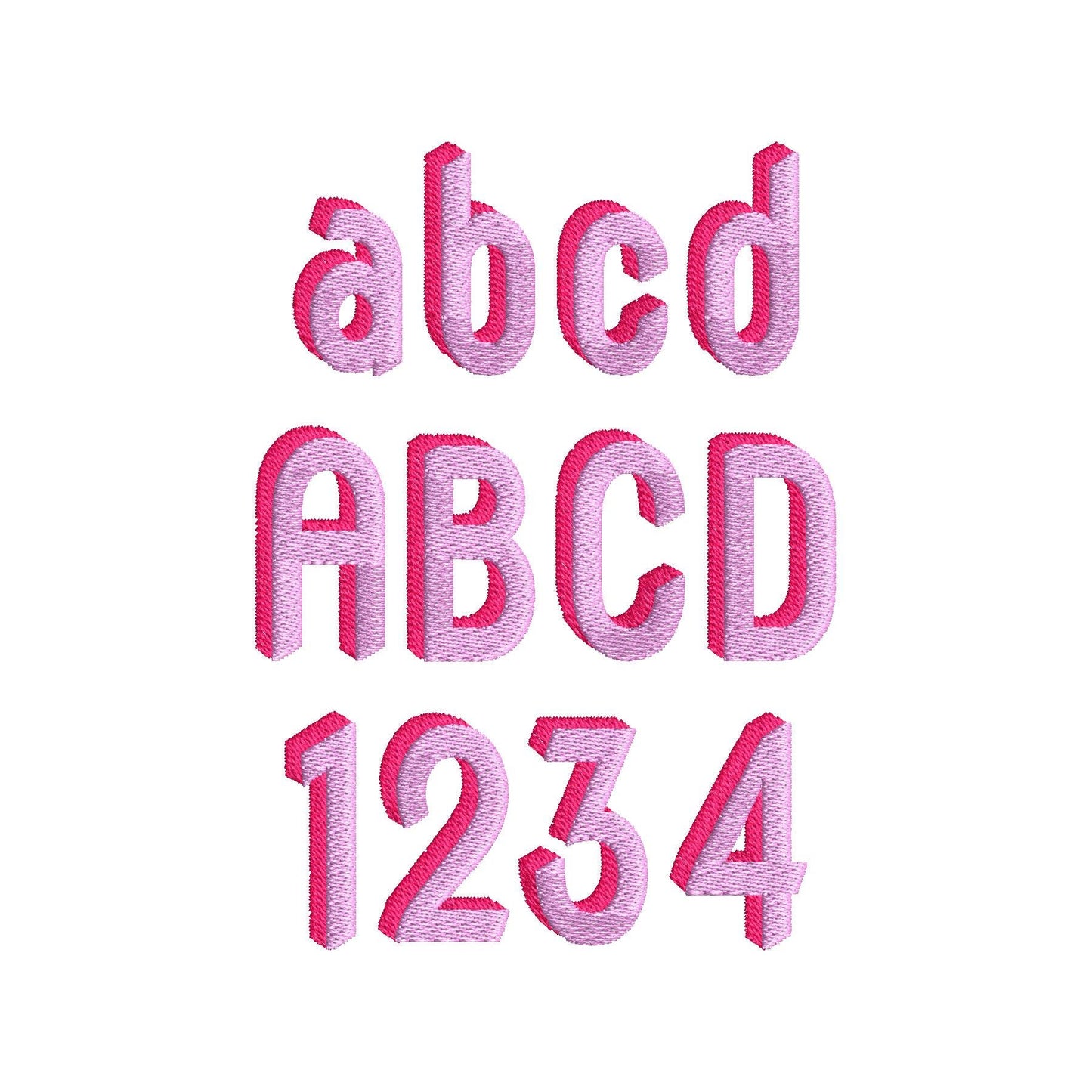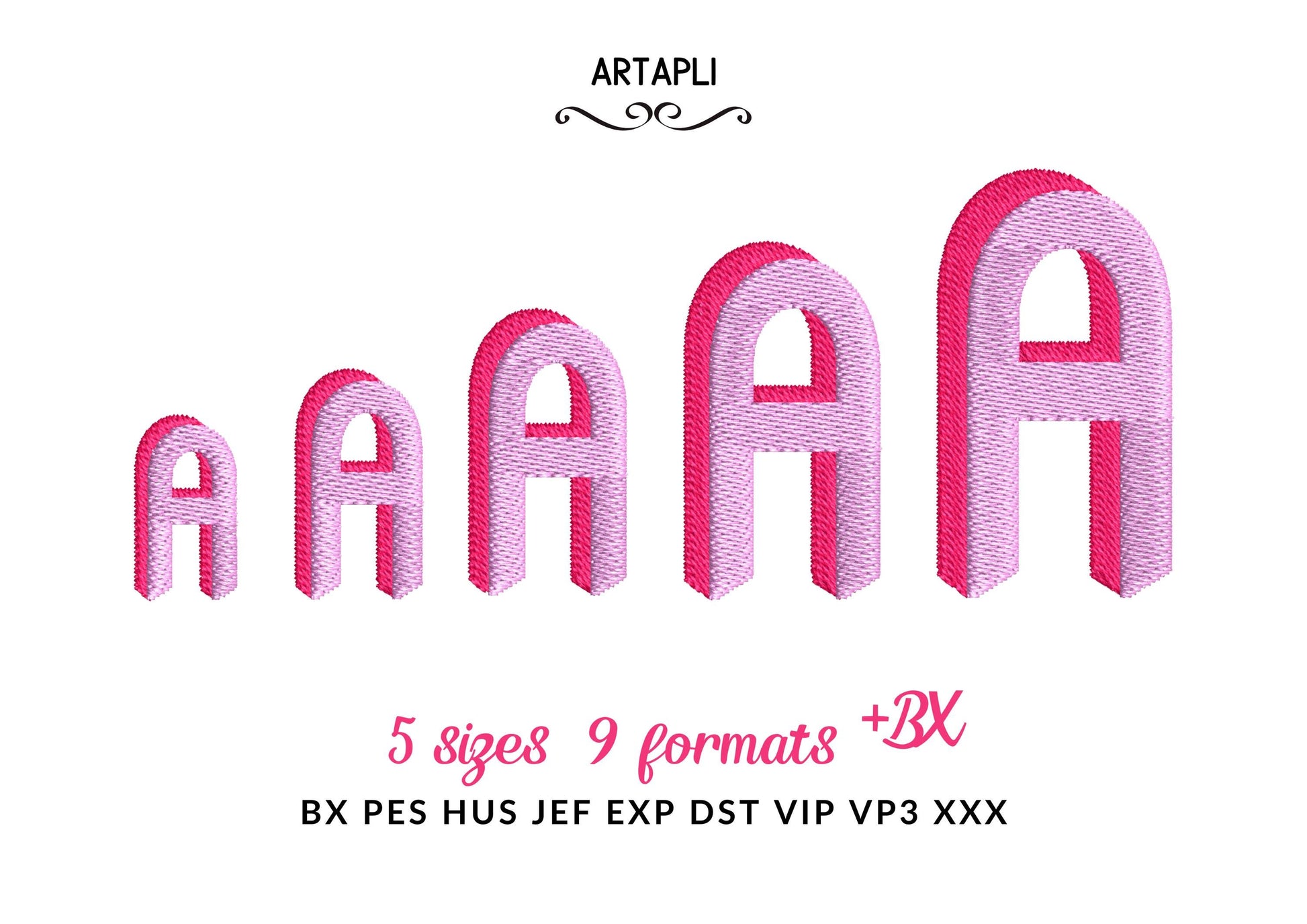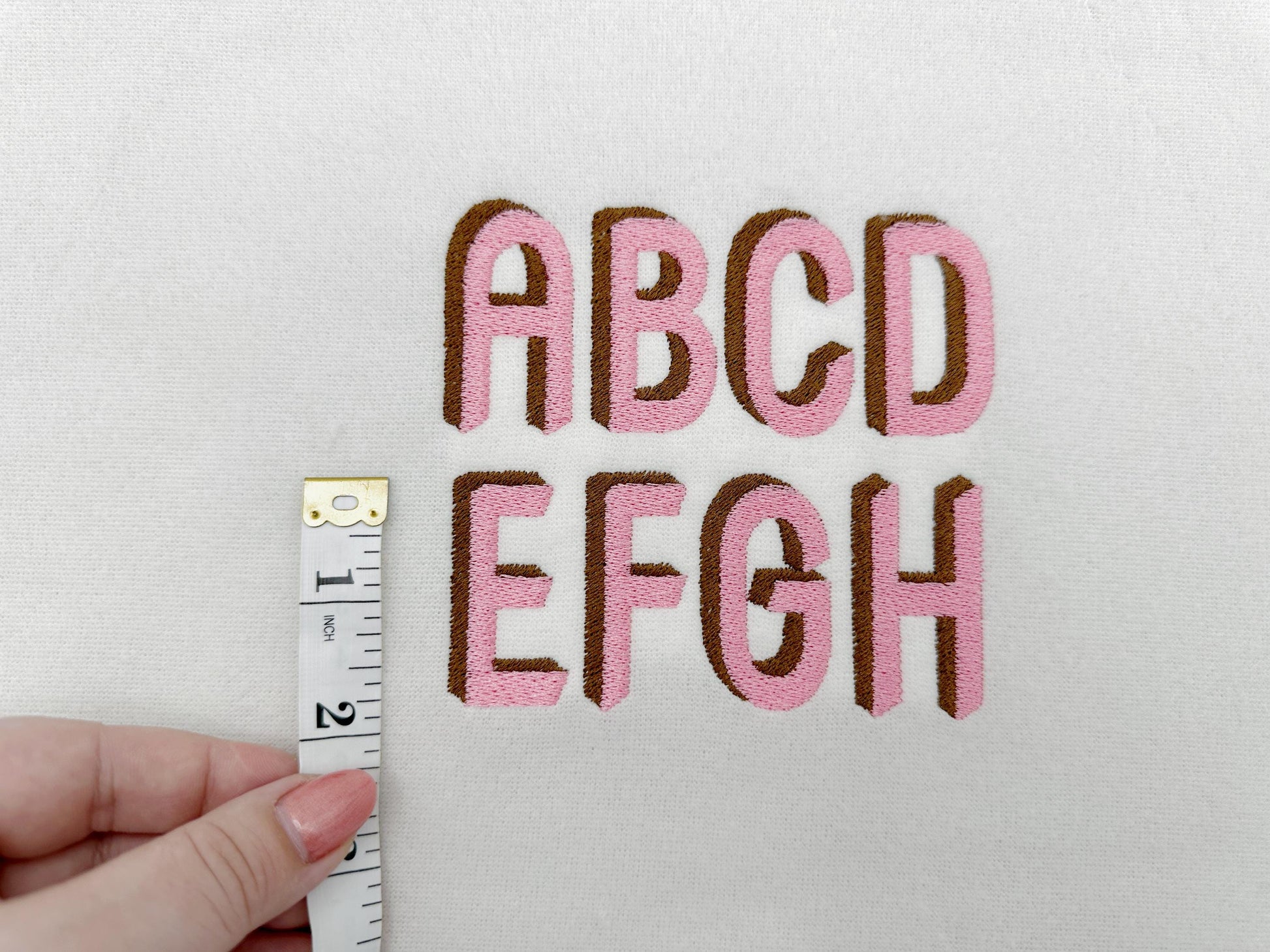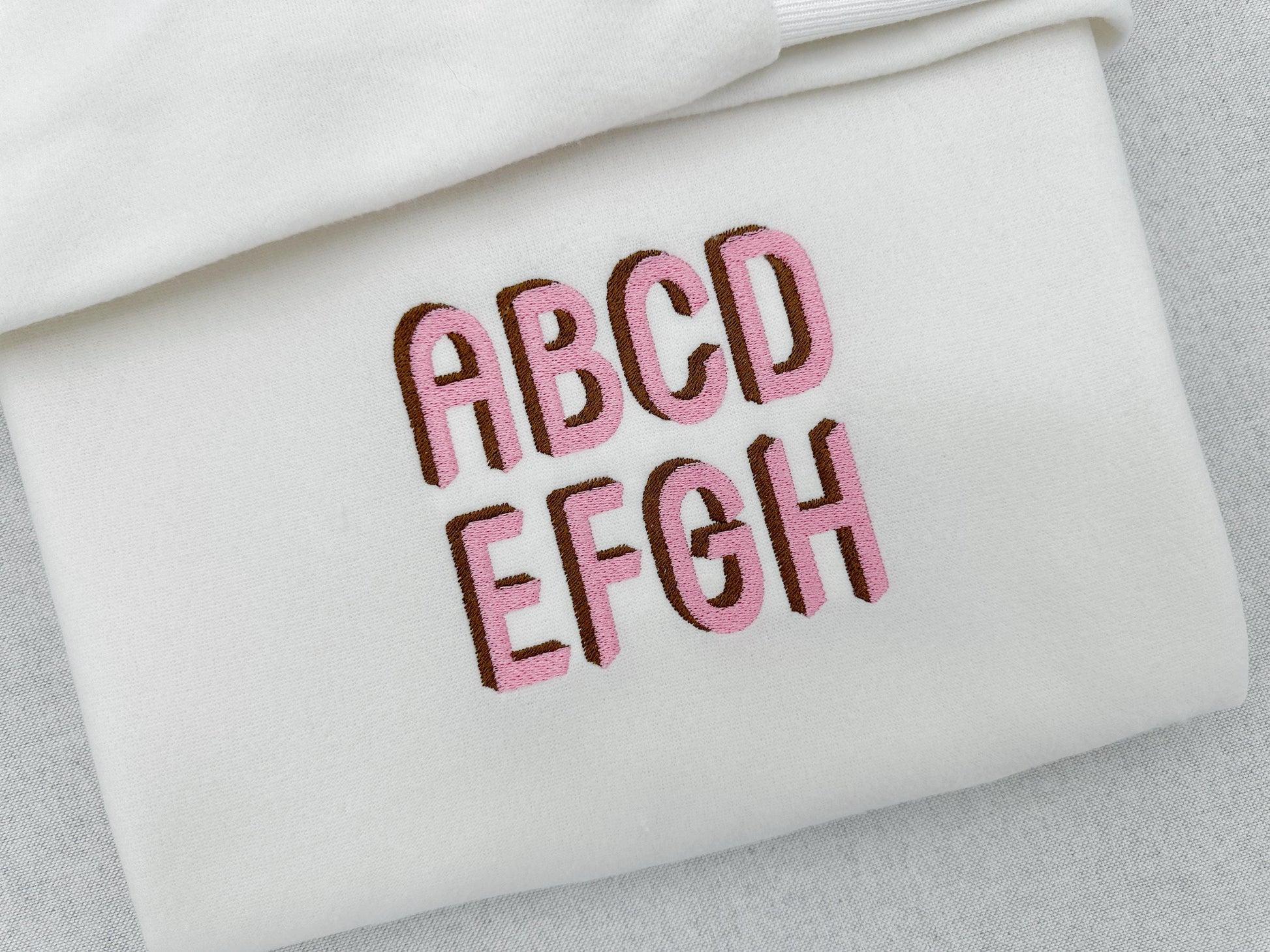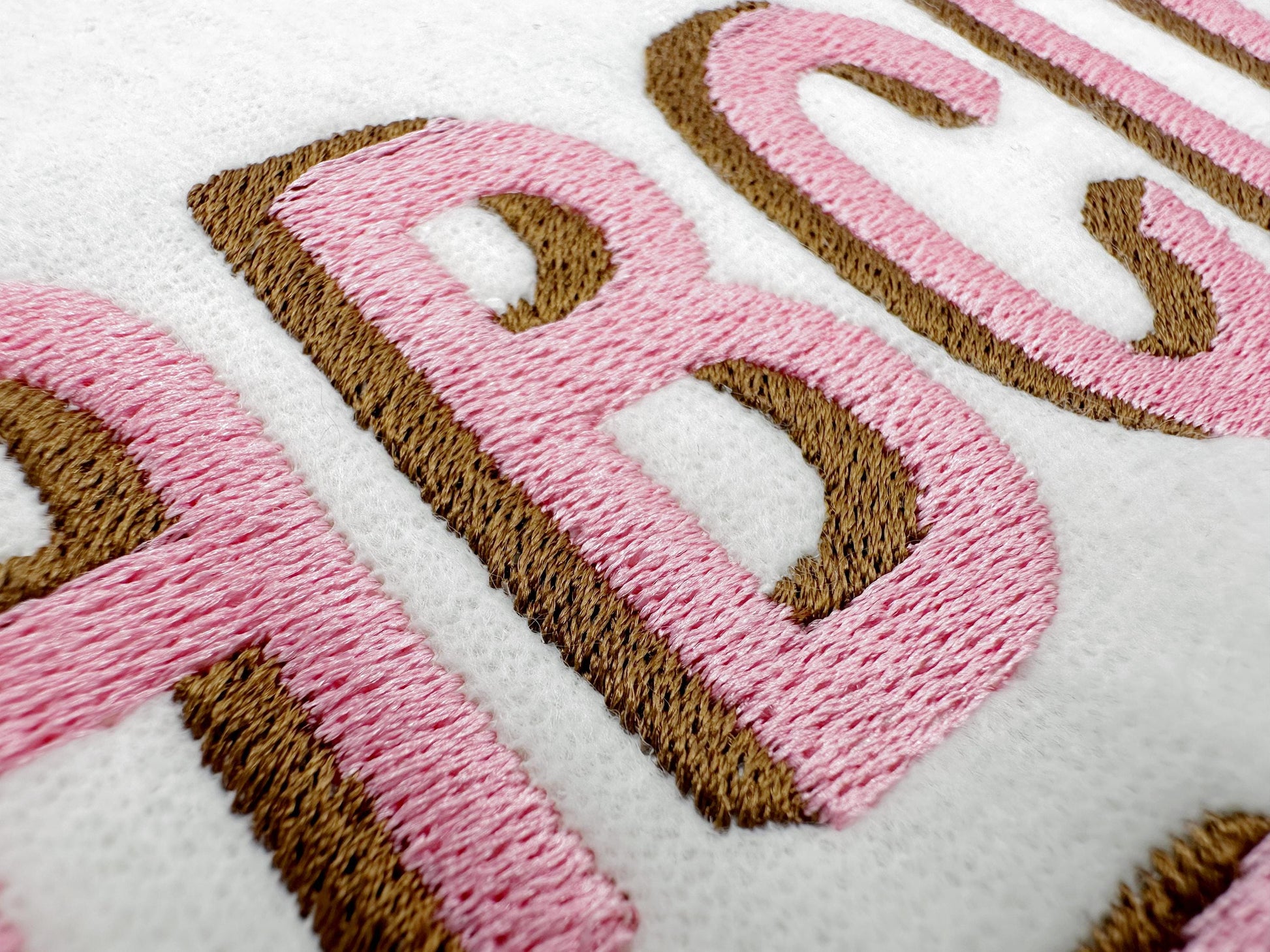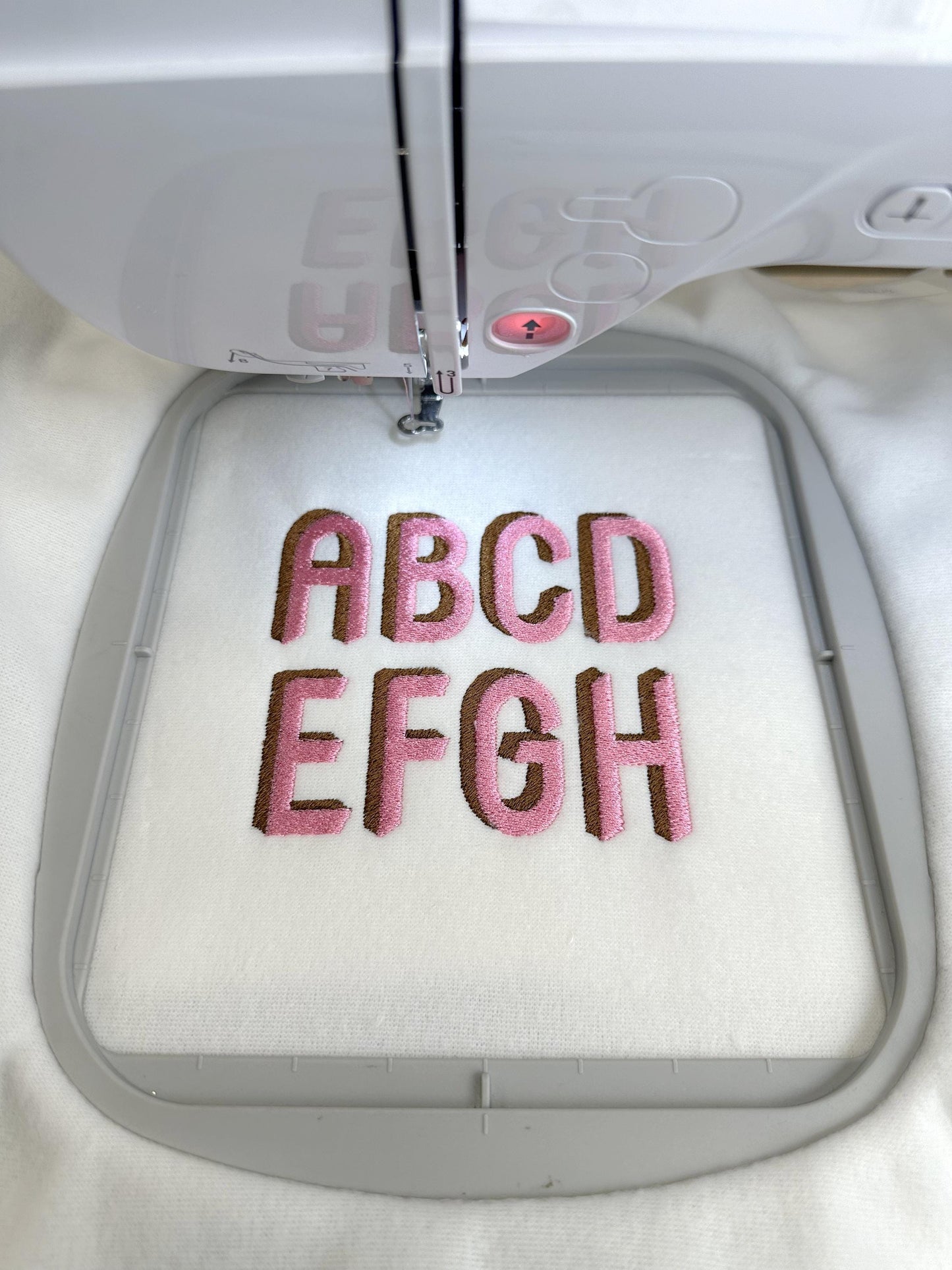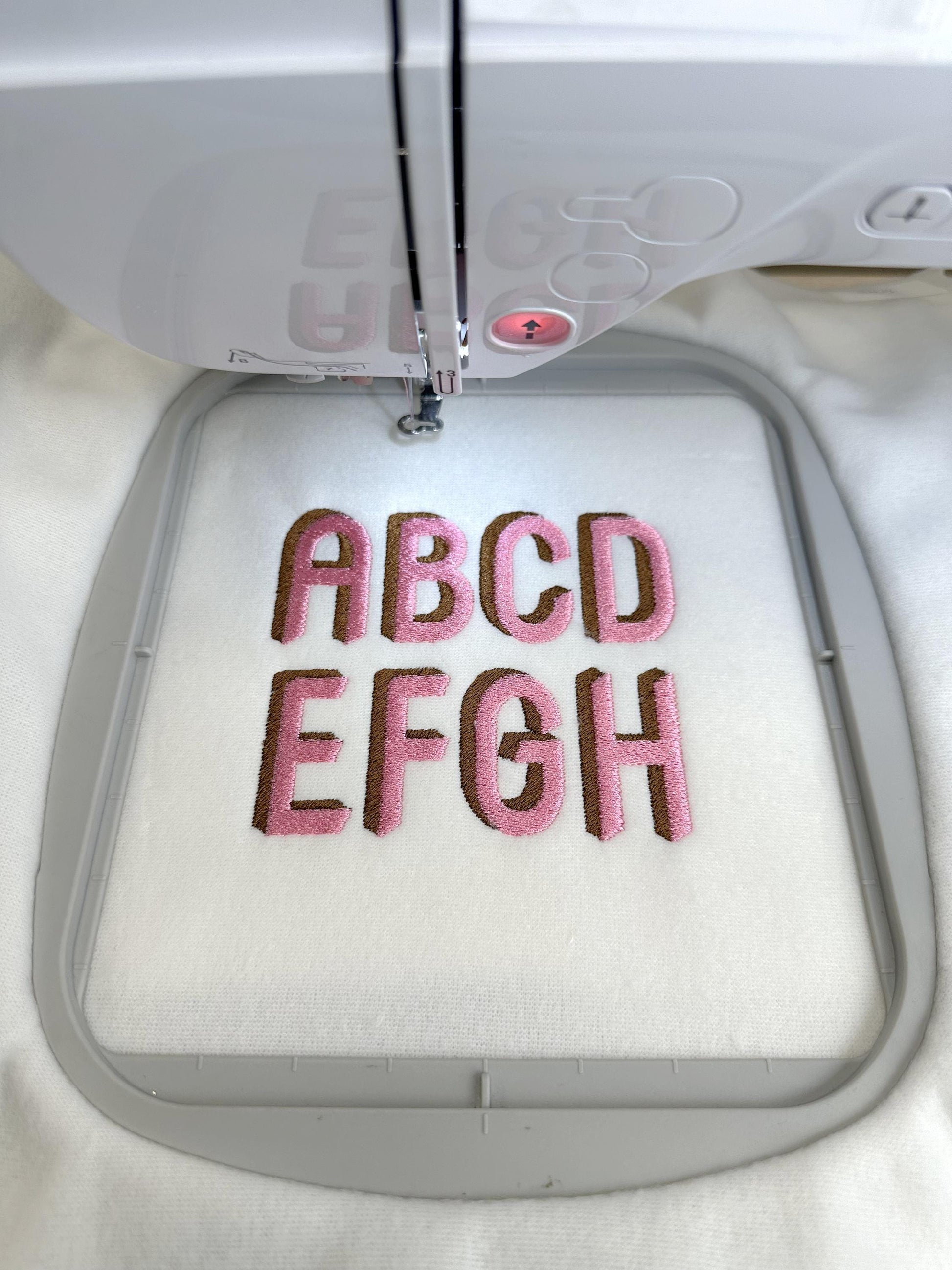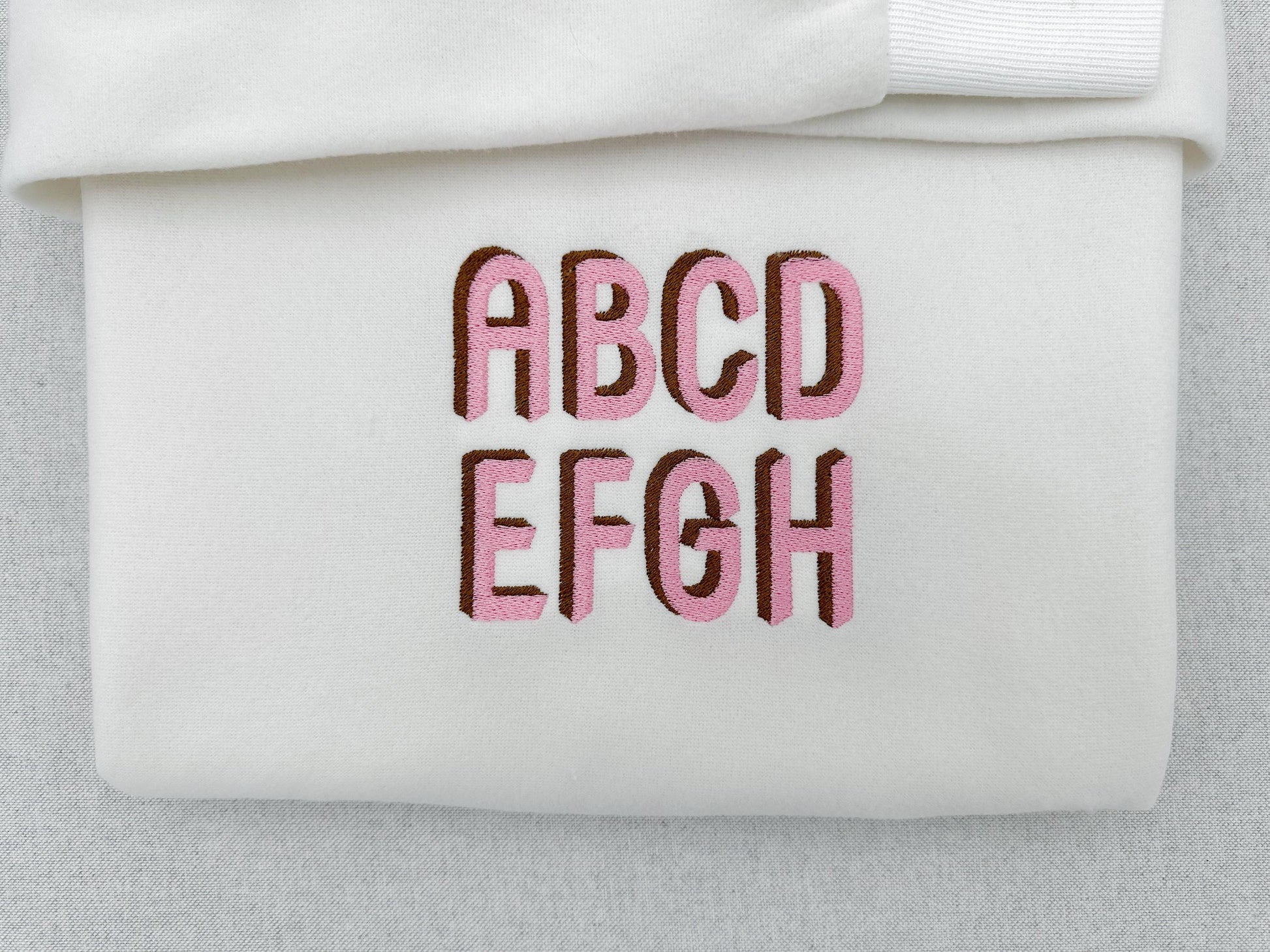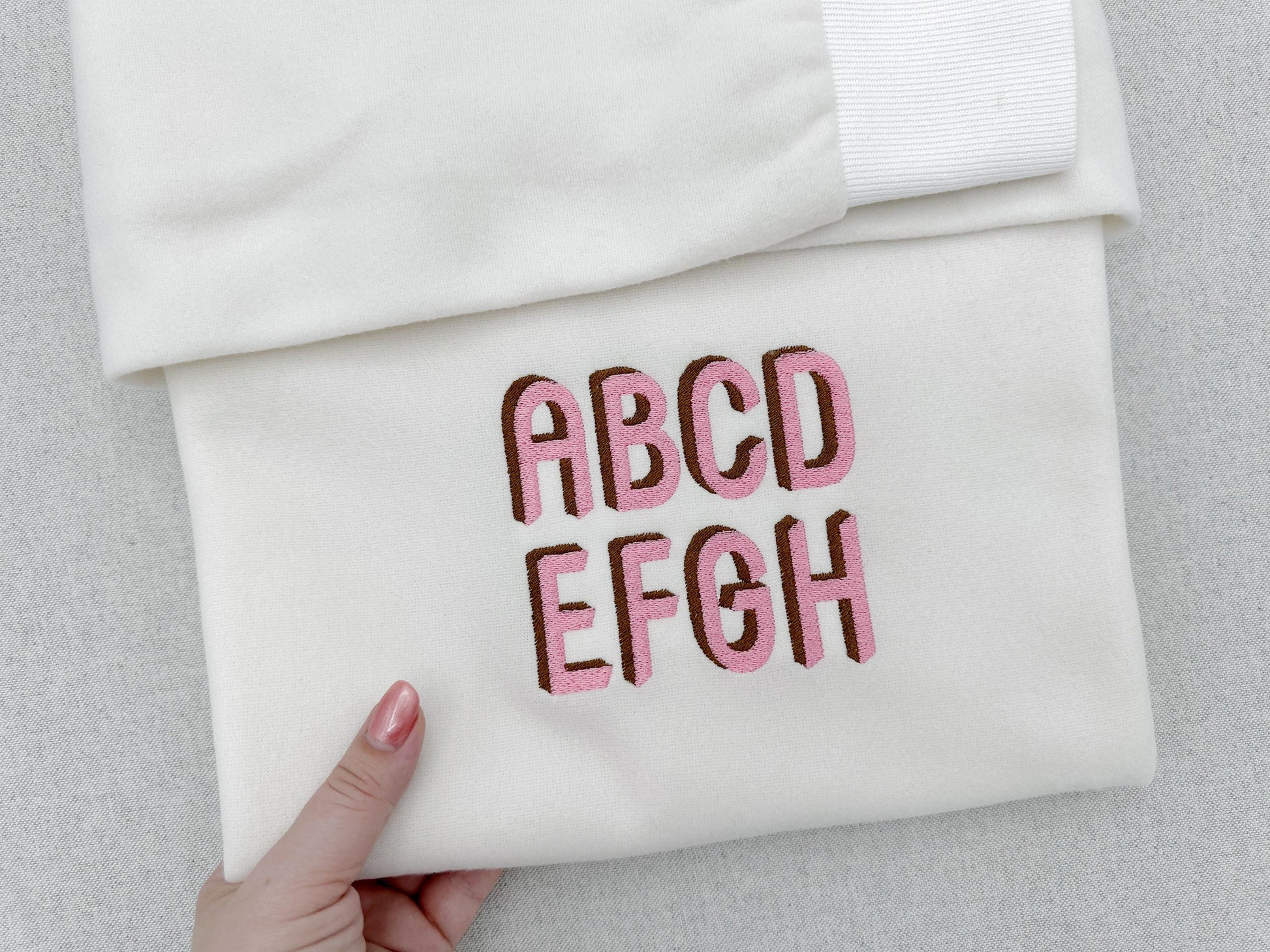
Rounded Shadow Font
Or click to open the linkA bold, rounded font in fill stitch with a colorful shadow. Great for small names, monograms and numbers on kids clothes, towels and bags.
The letters come in five sizes: 1, 1.2, 1.5, 2 and 2.2 inches. Includes uppercase and lowercase letters, numbers 0-9 and punctuation.
- Rounded shadow font: uppercase and lowercase letters, numbers 0-9 and punctuation
- 5 letter sizes, 1 to 2.2 in